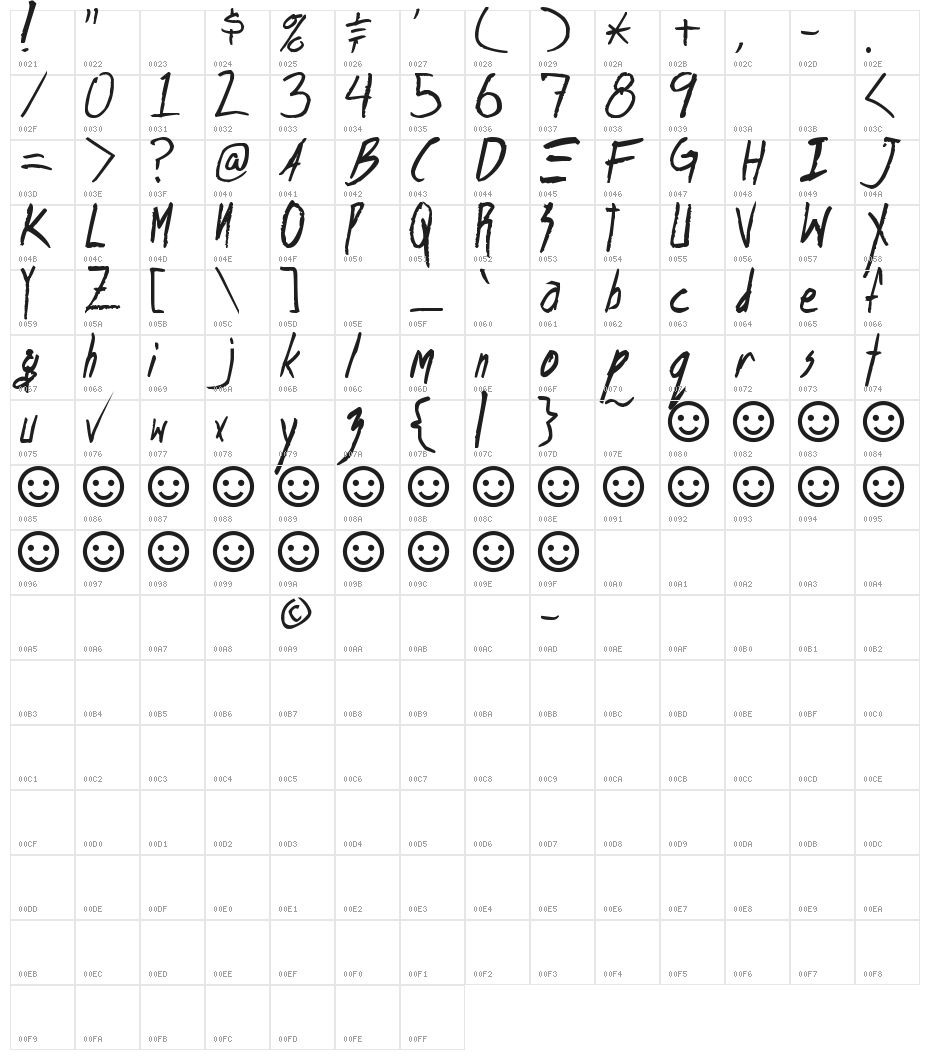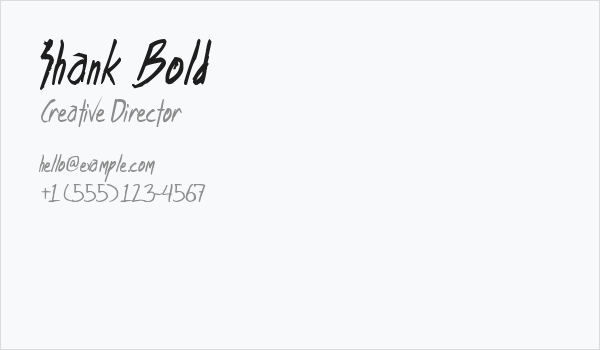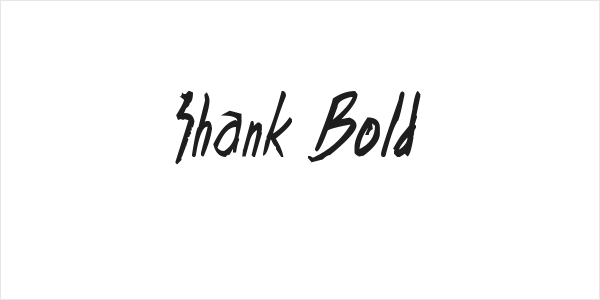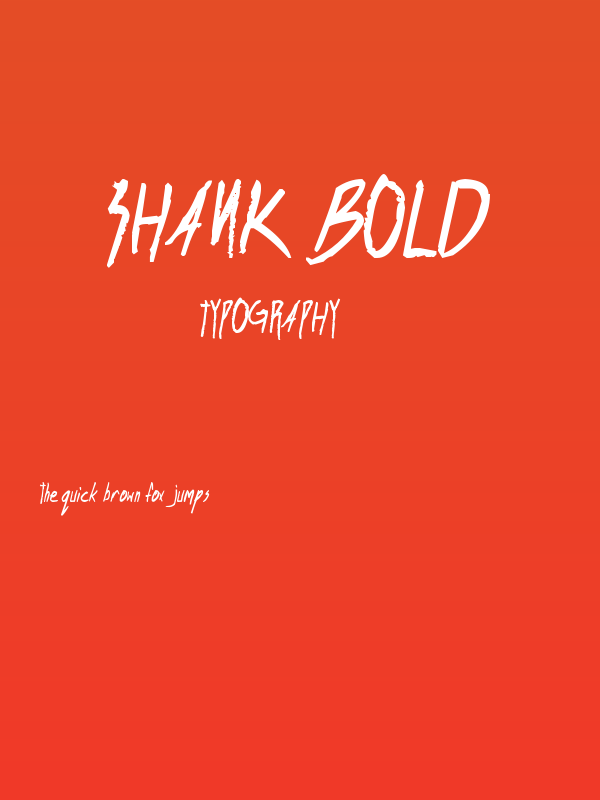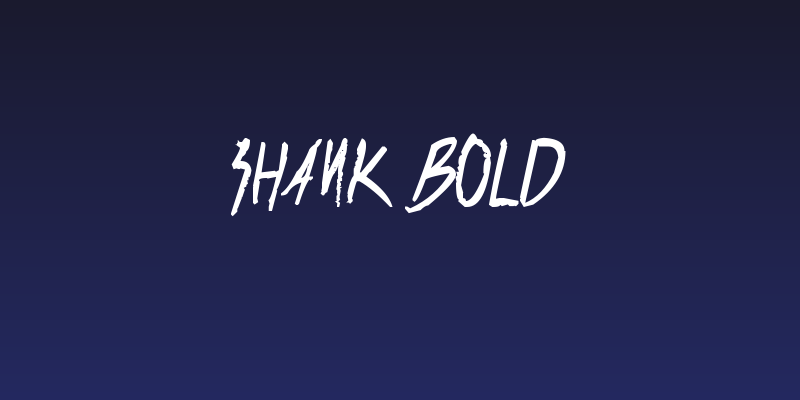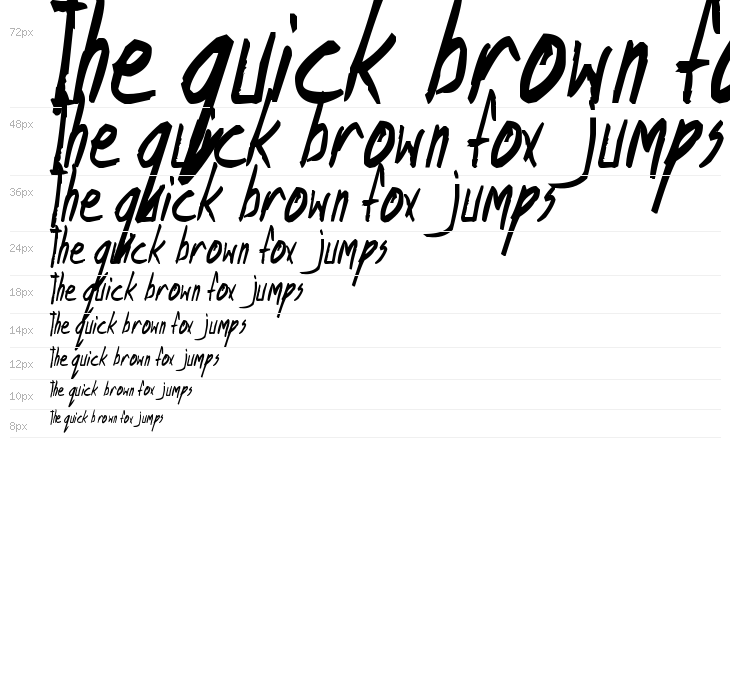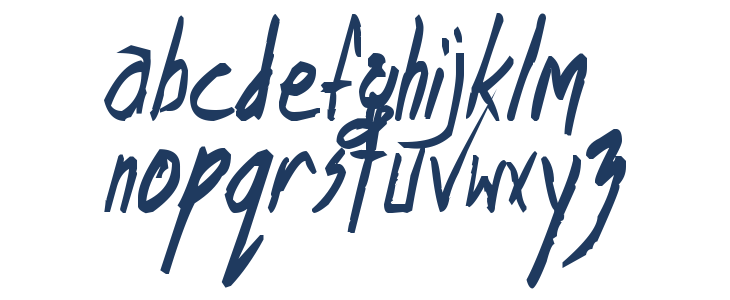
Shank Bold Font
Shank Bold Description
This font exhibits a bold, expressive style with a hand-drawn appearance. The strokes are uneven and dynamic, giving it a raw, energetic feel. The uppercase letters are tall and slightly narrow, while the lowercase letters maintain a consistent height with a playful, irregular baseline. The numbers and special characters follow the same bold and lively aesthetic, making them stand out. The overall design is reminiscent of graffiti or street art, with a sense of movement and spontaneity. This font is ideal for projects that require a strong, artistic statement.
| Proposed Projects | Ideal for posters, album covers, street art designs, and any project needing a bold, artistic touch. |